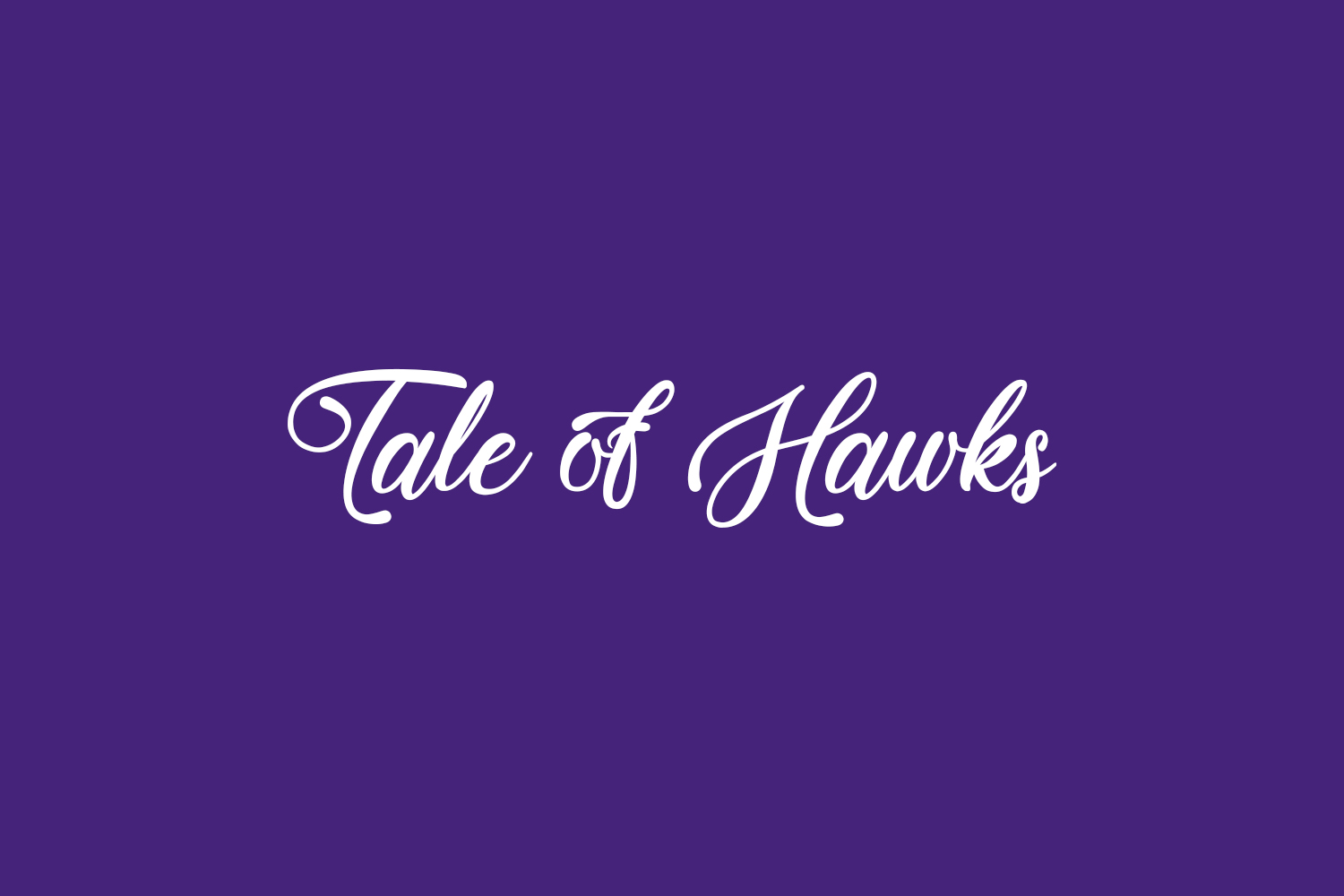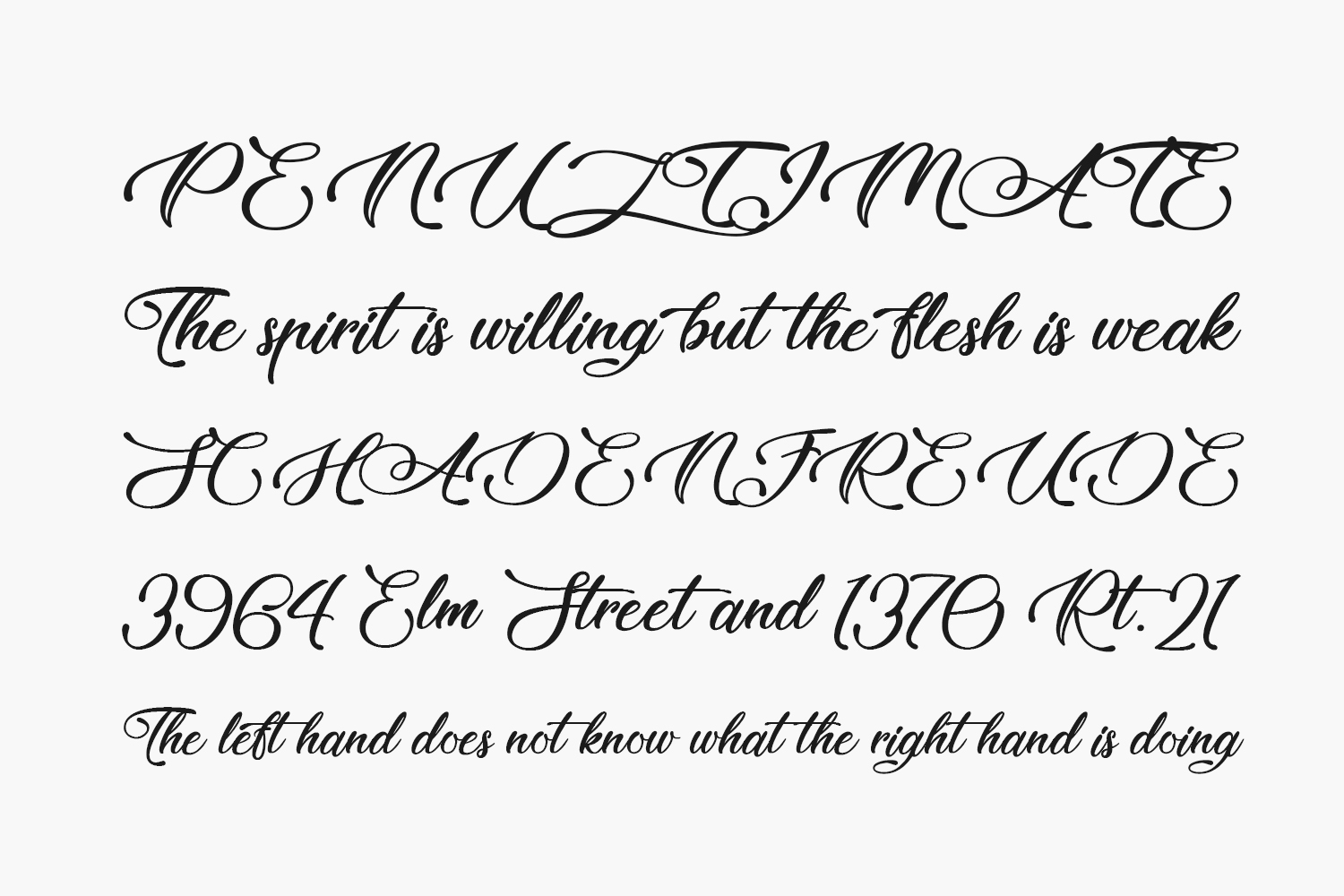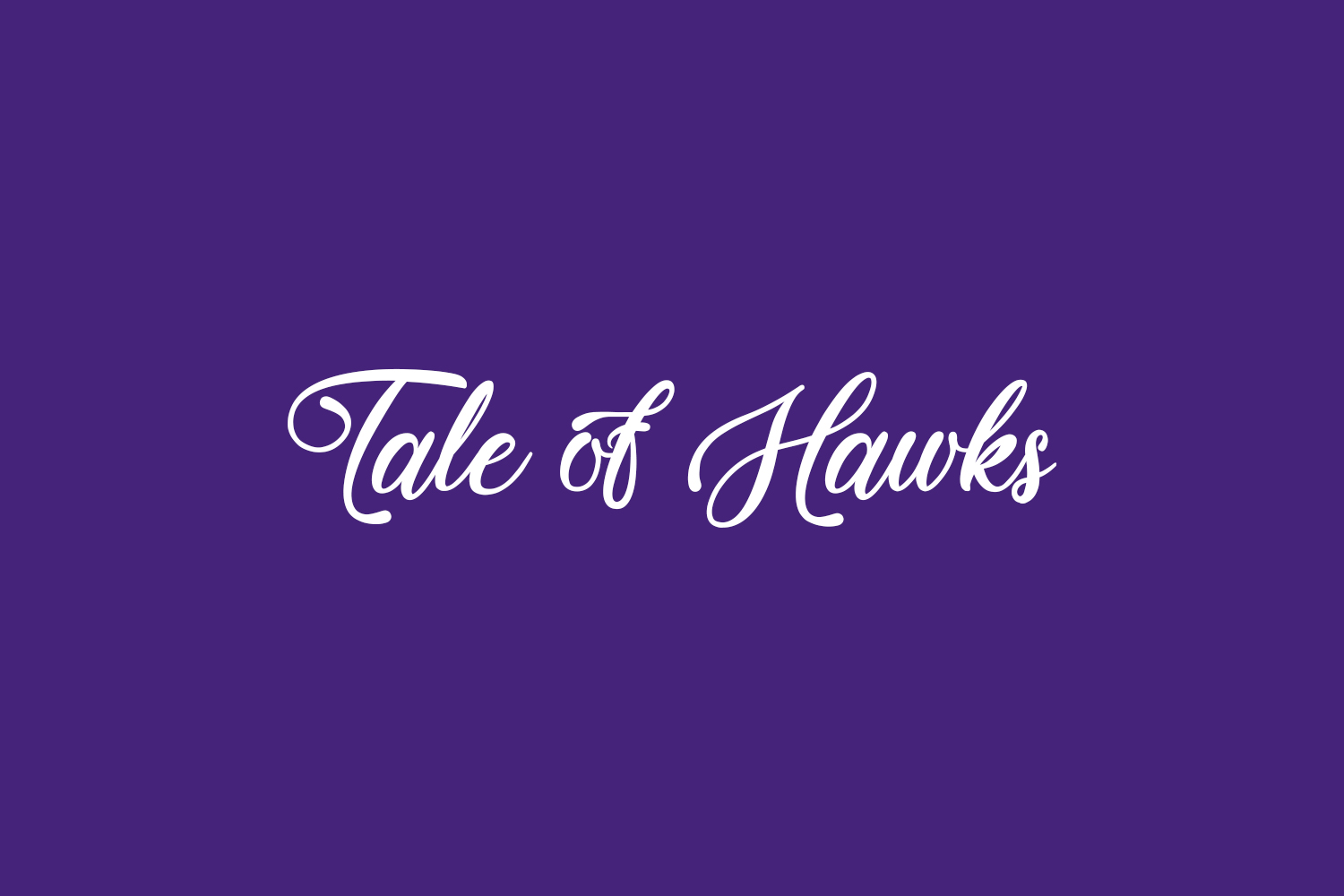
Tale of Hawks Free Font is a beautiful, versatile title script that will add amazing impact to all your designs! This font has a bold look and works well in both vintage and modern designs. Tale of Hawks Free Font was designed by Typhoon Type™ and is free for personal use only. Please purchase the full version for commercial use.